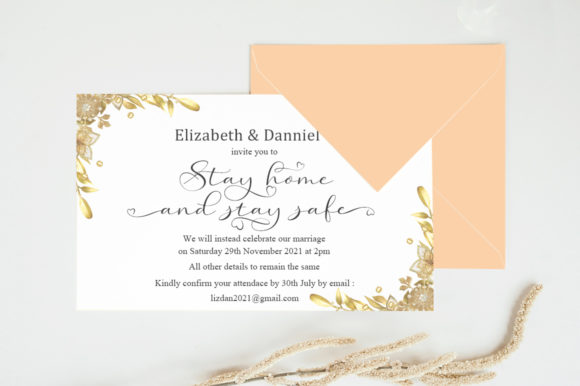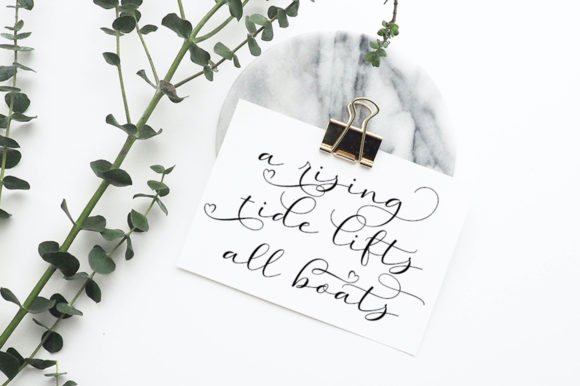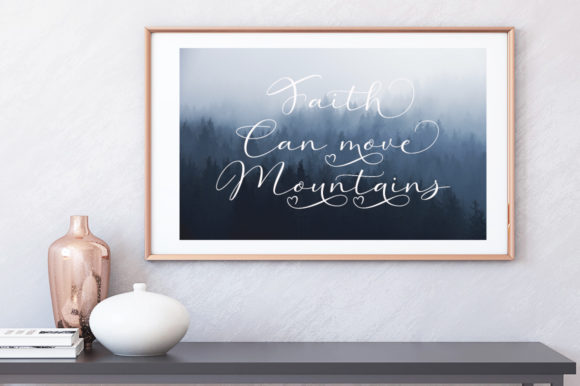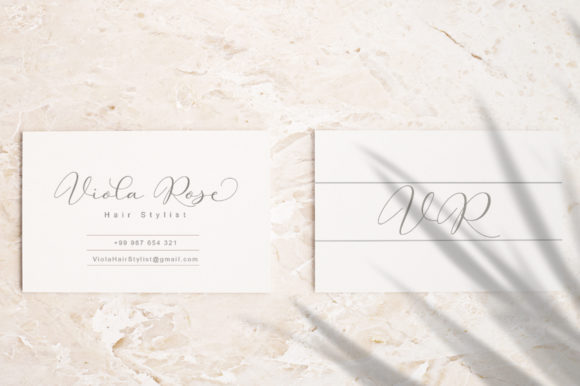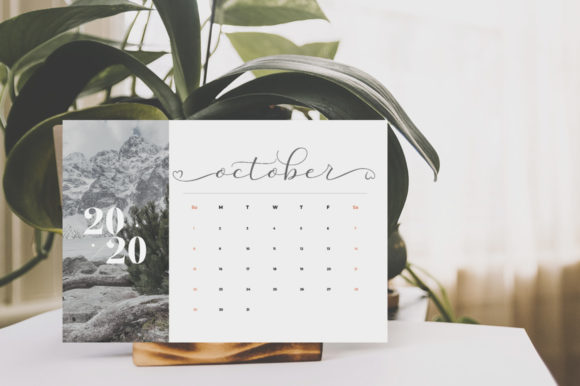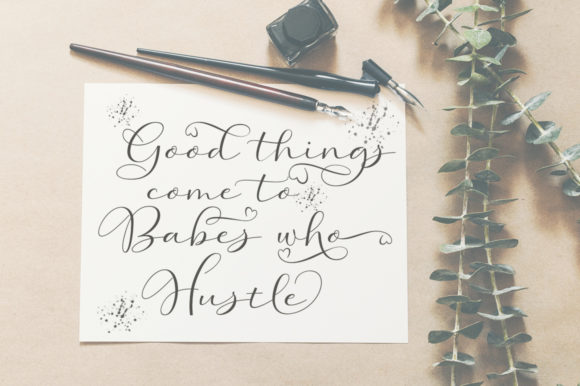
Introducing Hanisha Lovely Font: The Ultimate Romantic Handwritten Font
Are you a designer or crafter looking for a font that exudes elegance and romance? Look no further than the Hanisha Lovely Font! This delicate and elegant handwritten font is perfect for creating spectacular designs that will leave a lasting impression. In this article, we’ll dive into the features and benefits of Hanisha Lovely Font, and explore how you can use it to take your designs to the next level.
A Delicate and Elegant Handwritten Font
Hanisha Lovely Font is a beautifully crafted handwritten font that is designed to evoke a sense of romance and sophistication. Its distinct and well-rounded letters make it a masterpiece, perfect for creating designs that are both elegant and eye-catching. Whether you’re creating wedding invitations, branding materials, or social media graphics, Hanisha Lovely Font is the perfect choice.
Incredibly Versatile Style
One of the standout features of Hanisha Lovely Font is its incredibly versatile style. This font can be used in a wide range of design applications, from romantic and whimsical to modern and sleek. Whether you’re creating designs for a client or for your own personal projects, Hanisha Lovely Font is sure to impress.
Hanisha Lovely Font is PUA (Private Use Area) encoded, which means that you can access all of the glyphs and swashes with ease. This makes it easy to customize your designs and add your own personal touch. With PUA encoding, you can easily access alternate characters, ligatures, and swashes, giving you complete creative control over your designs.
Hanisha Lovely Font is perfect for designers and crafters who are looking for a high-quality, elegant font to add to their collection. Whether you’re creating digital designs or handmade crafts, this font is sure to inspire your creativity. With its delicate and elegant style, Hanisha Lovely Font is perfect for a wide range of projects, including:
- Branding materials and logos
- Handmade crafts and DIY projects
- Digital art and illustrations
Tips for Using Hanisha Lovely Font
Here are a few tips for using Hanisha Lovely Font in your designs:
- Use it as a headline font to add a touch of elegance and sophistication to your designs.
- Pair it with a bold font to create a striking contrast and add visual interest to your designs.
- Experiment with different colors and textures to add depth and dimension to your designs.
- Use the glyphs and swashes to add a personal touch to your designs and make them more unique.
In conclusion, Hanisha Lovely Font is a beautiful and elegant handwritten font that is perfect for designers and crafters who are looking for a high-quality, romantic font to add to their collection. With its delicate and elegant style, incredibly versatile style, and PUA encoding, this font is sure to inspire your creativity and take your designs to the next level. So why wait? Fall in love with Hanisha Lovely Font today and start creating spectacular designs that will leave a lasting impression!
- Delicate and elegant handwritten font
- Romantic theme
- Distinct and well-rounded letters
- Incredibly versatile style